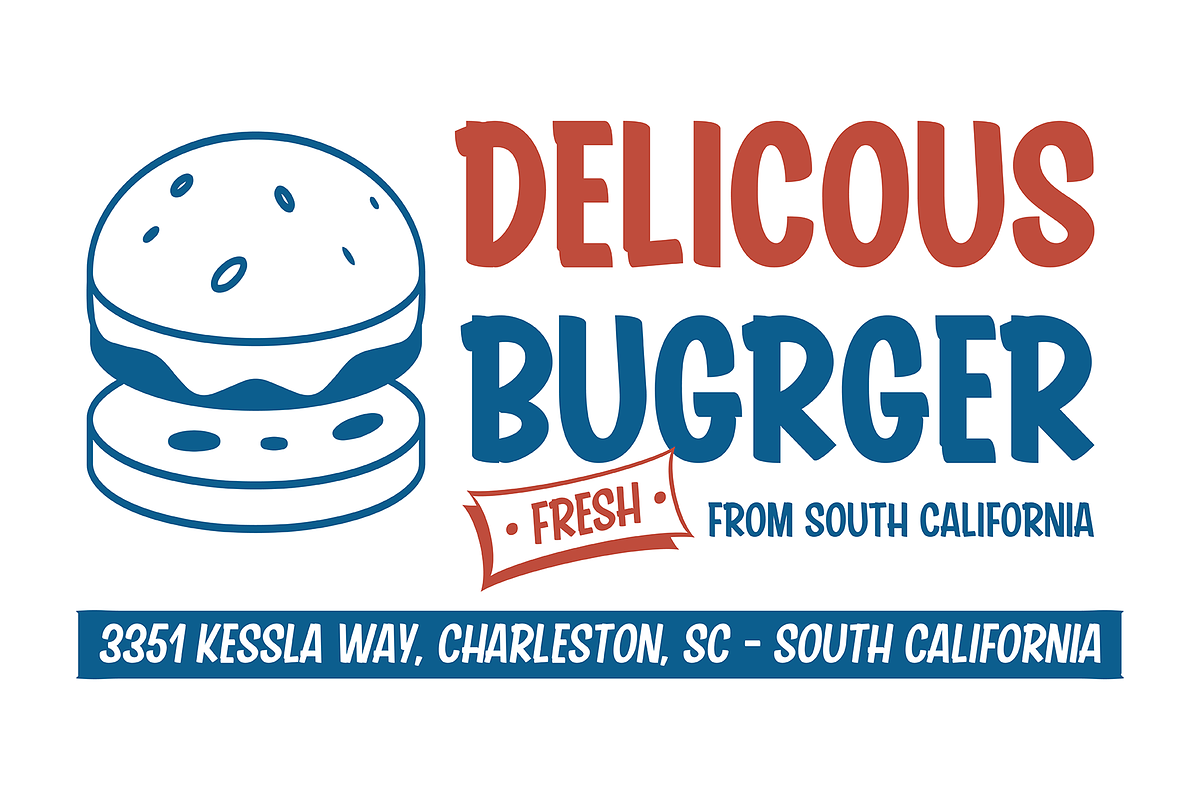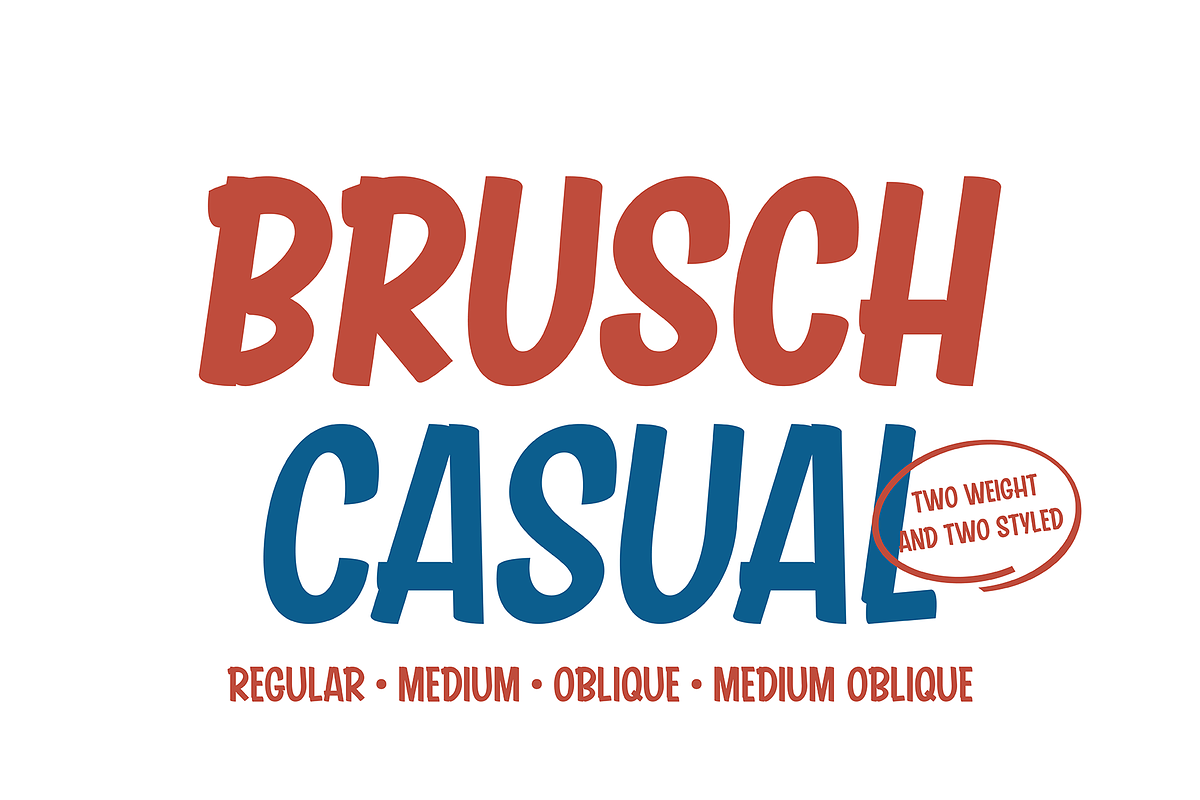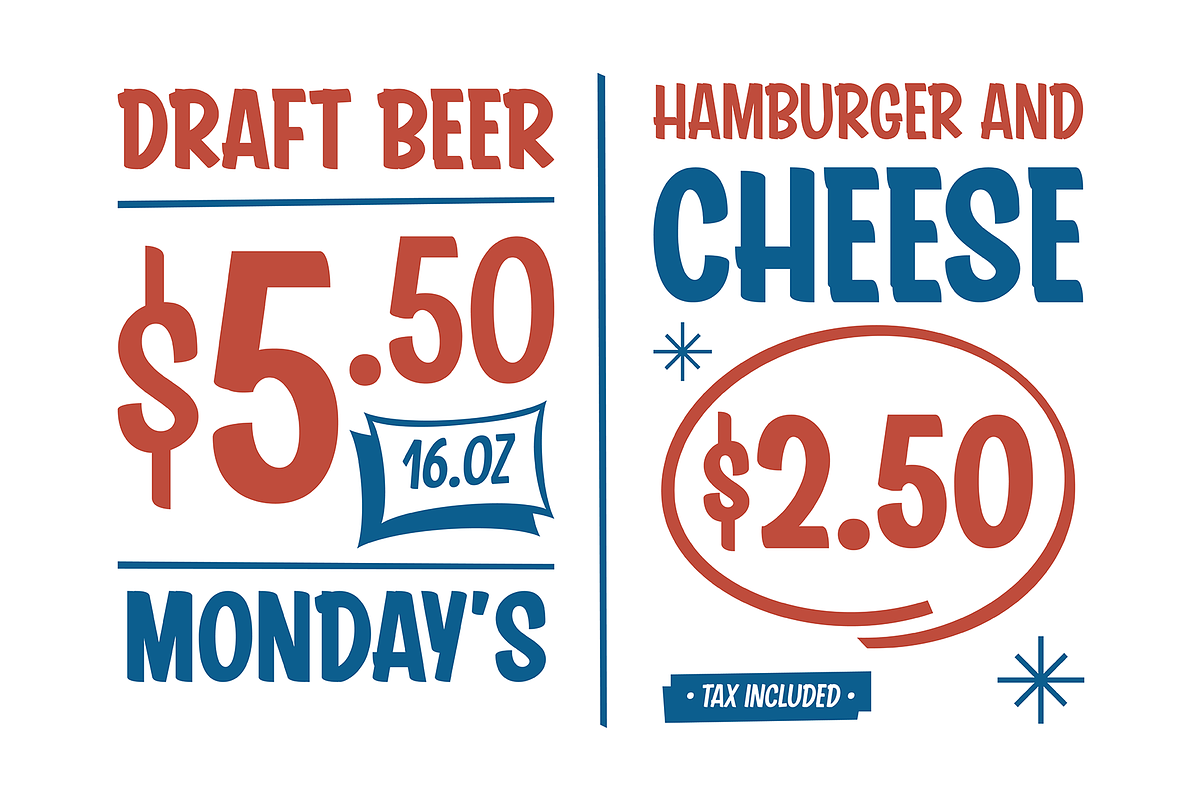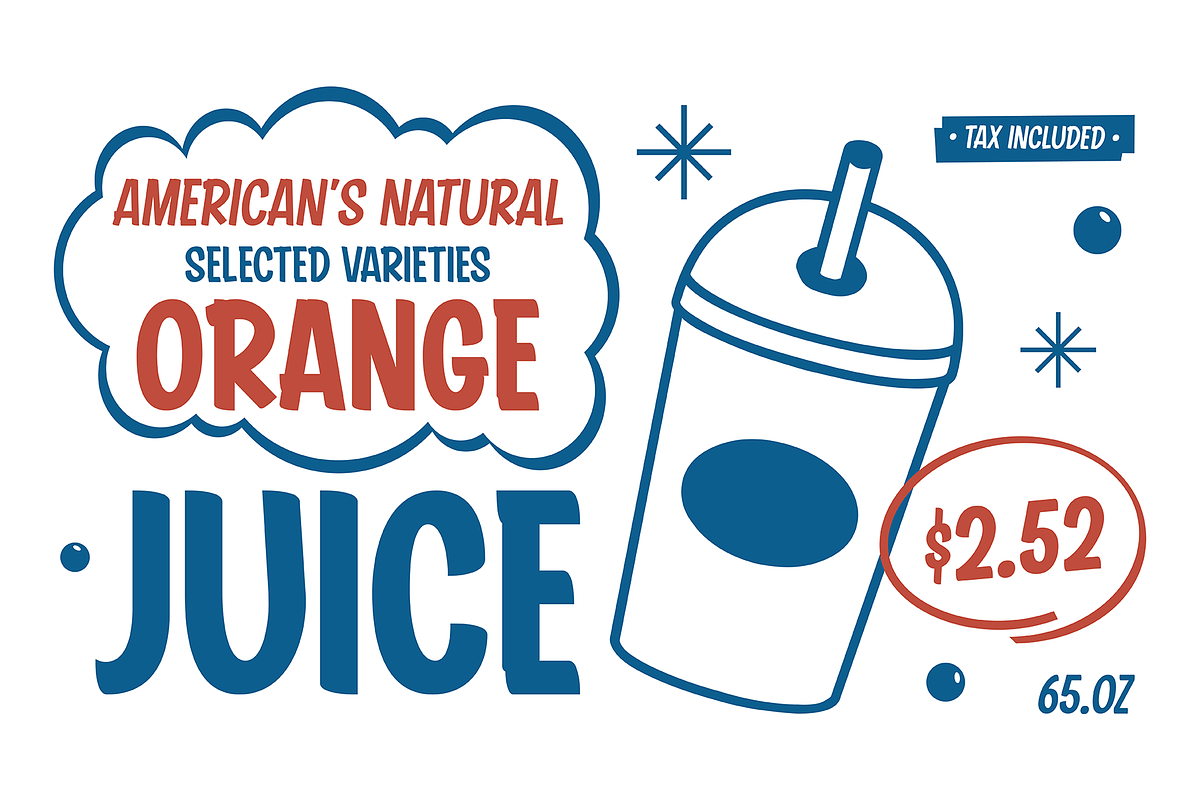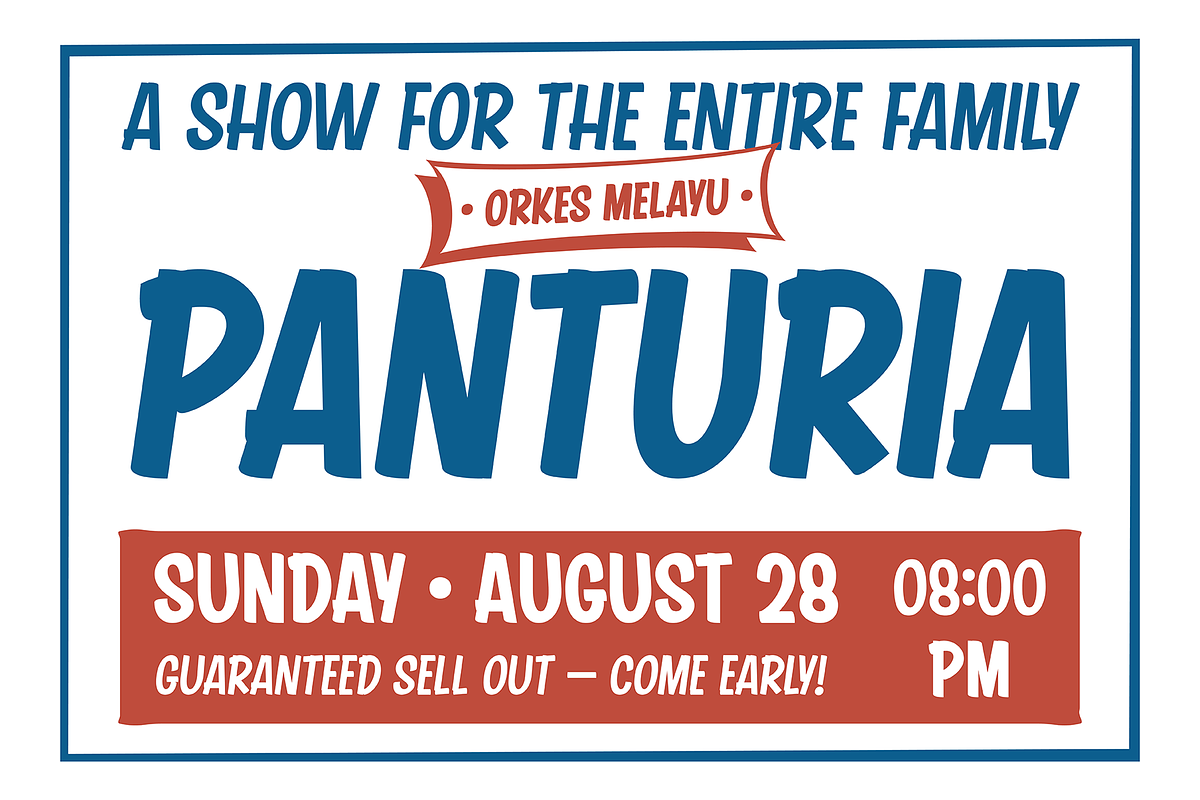
Brusch Casual
Brusch Casual is a All-Caps typeface inspired by Old Paper Signage. Comes in two styles and two weight , Brusch Casual very perfect for retro or vintage nuances such as Signage, logotype, movie title, Ads, headlines, book cover, beer label, packaging, prints or something else.